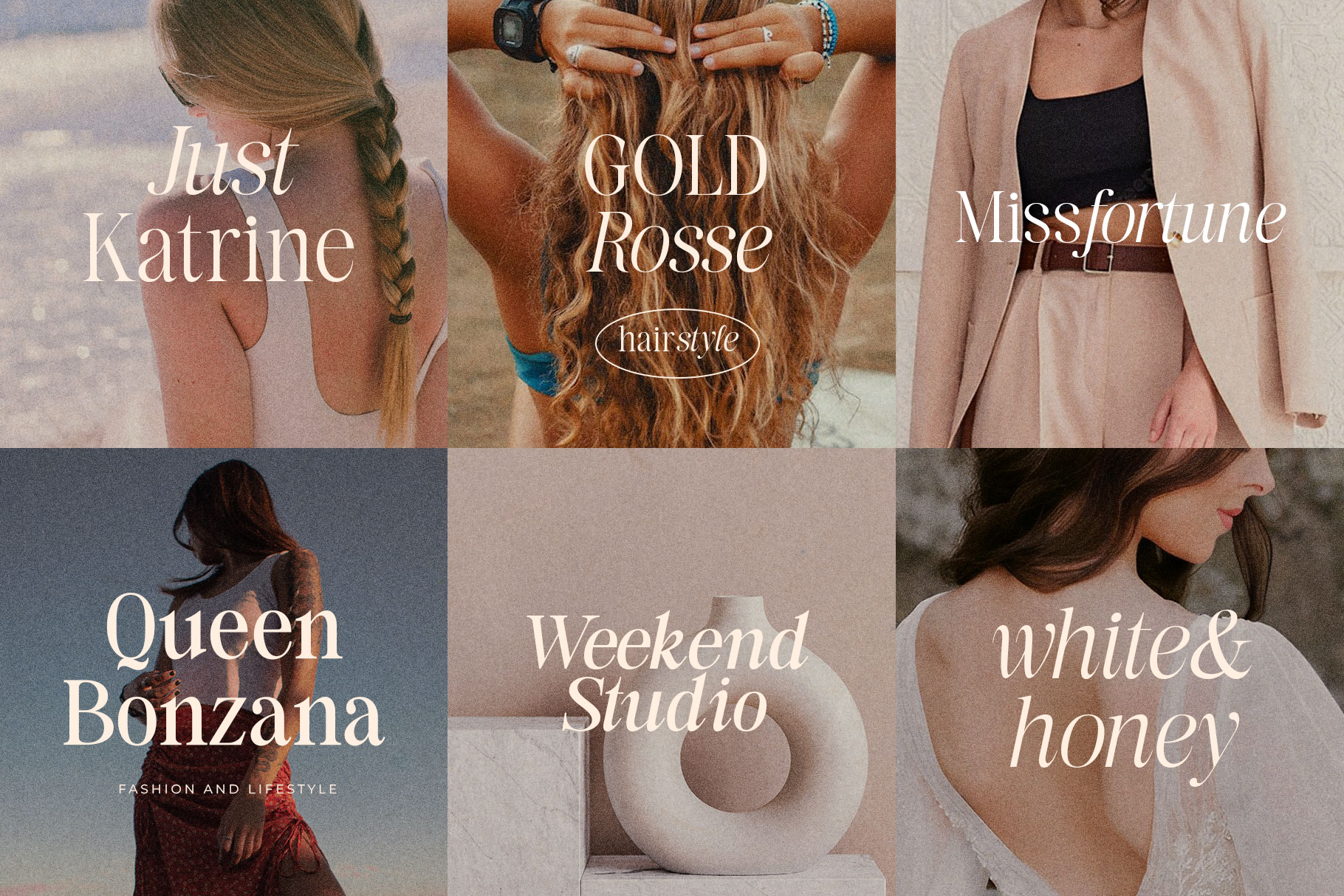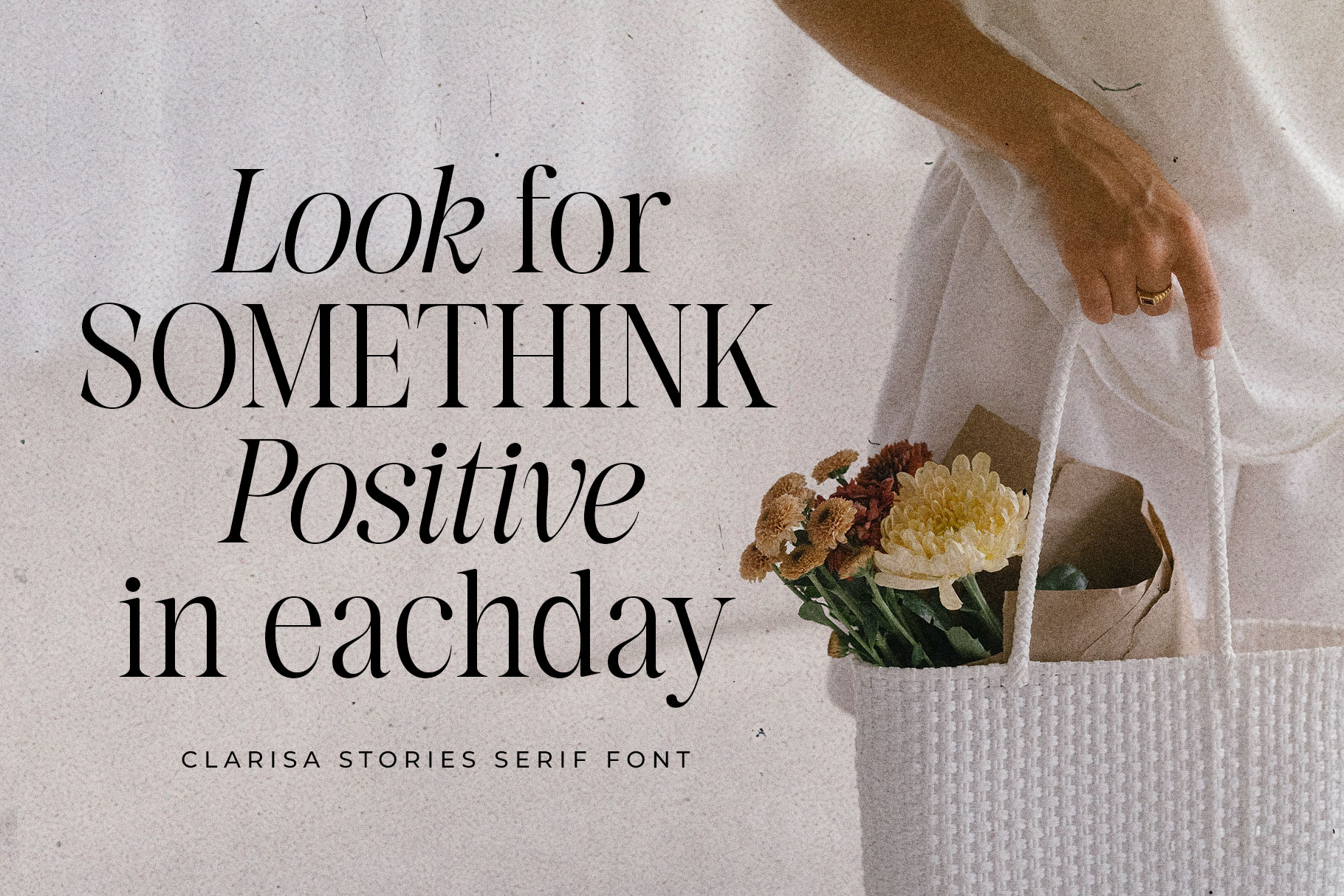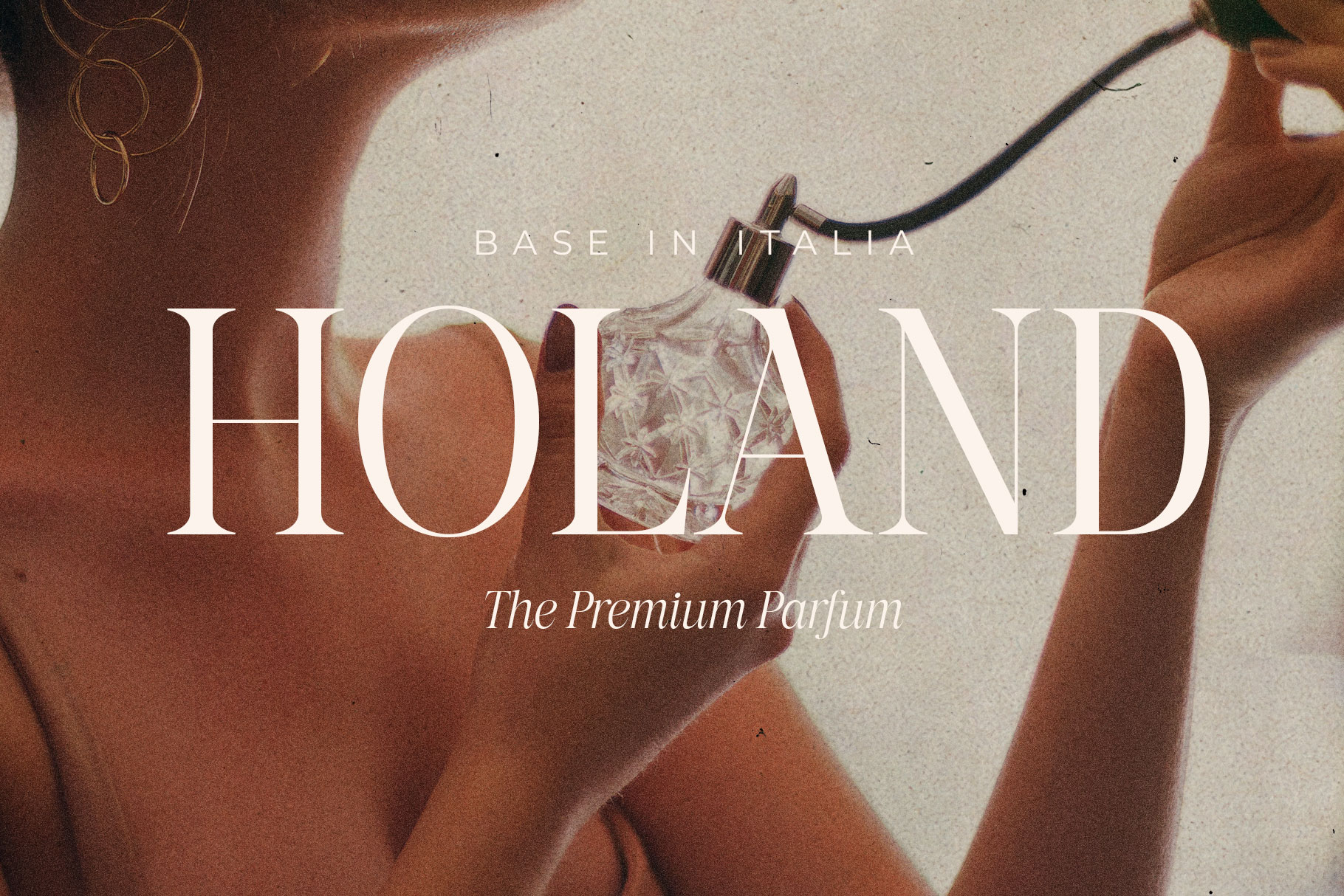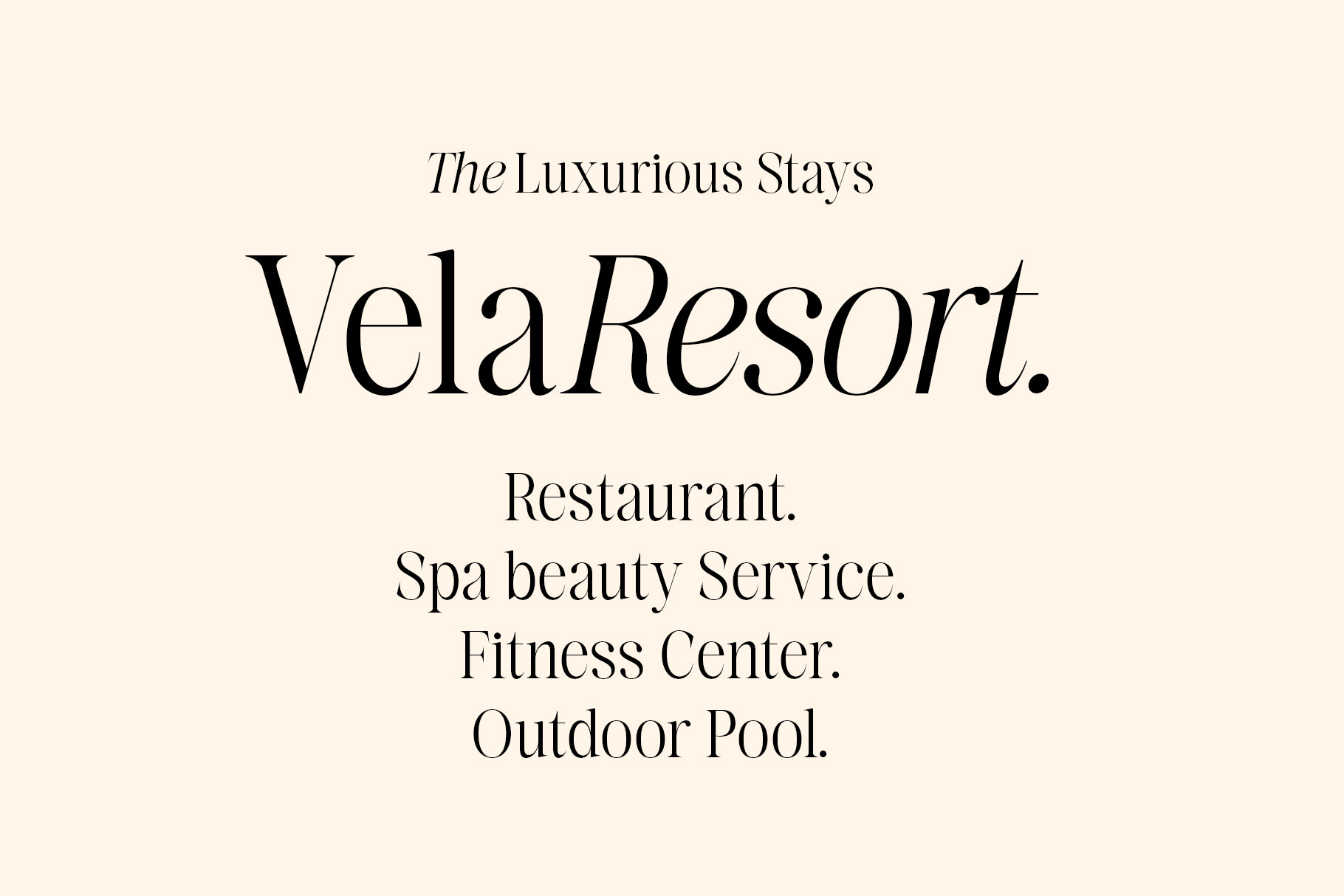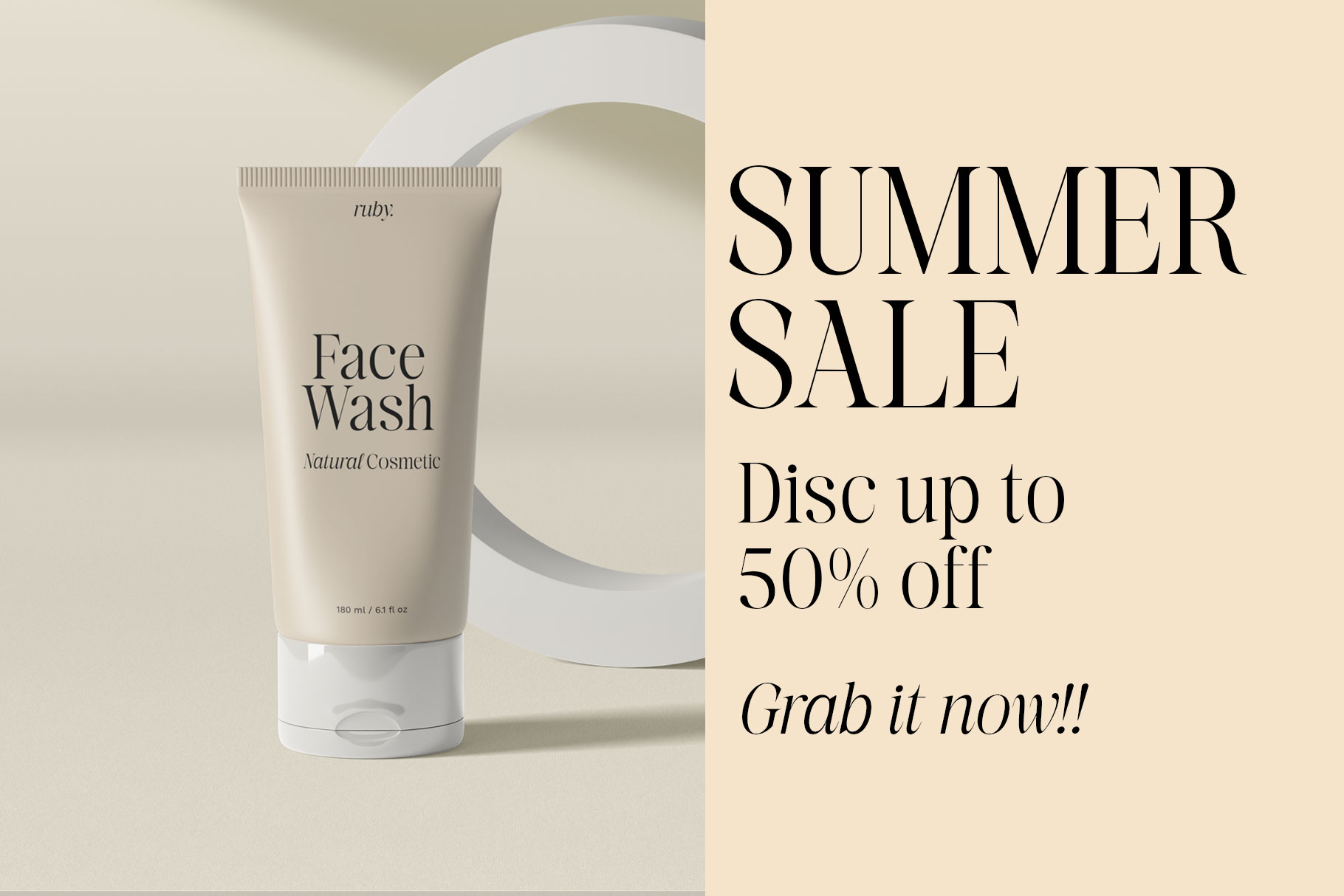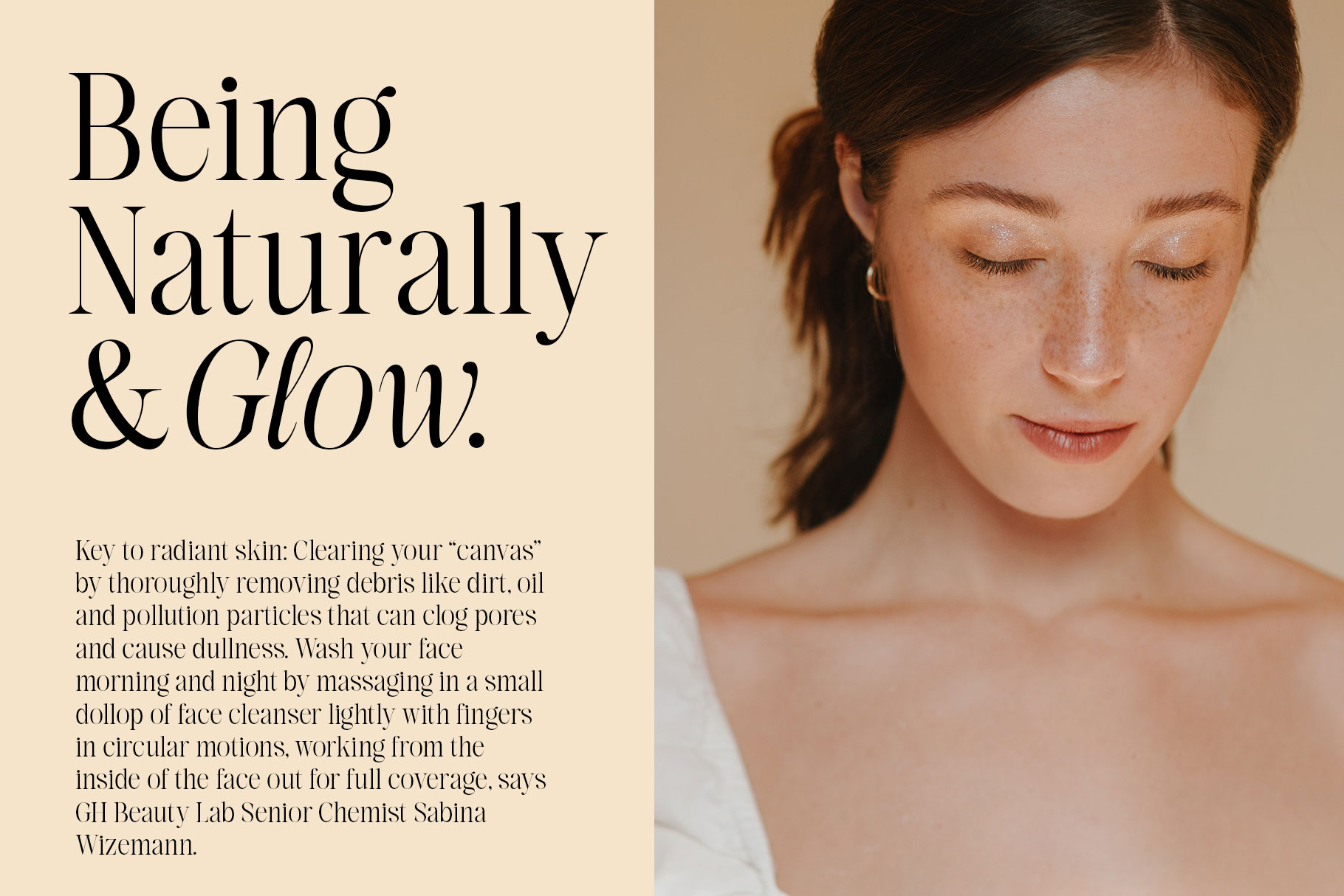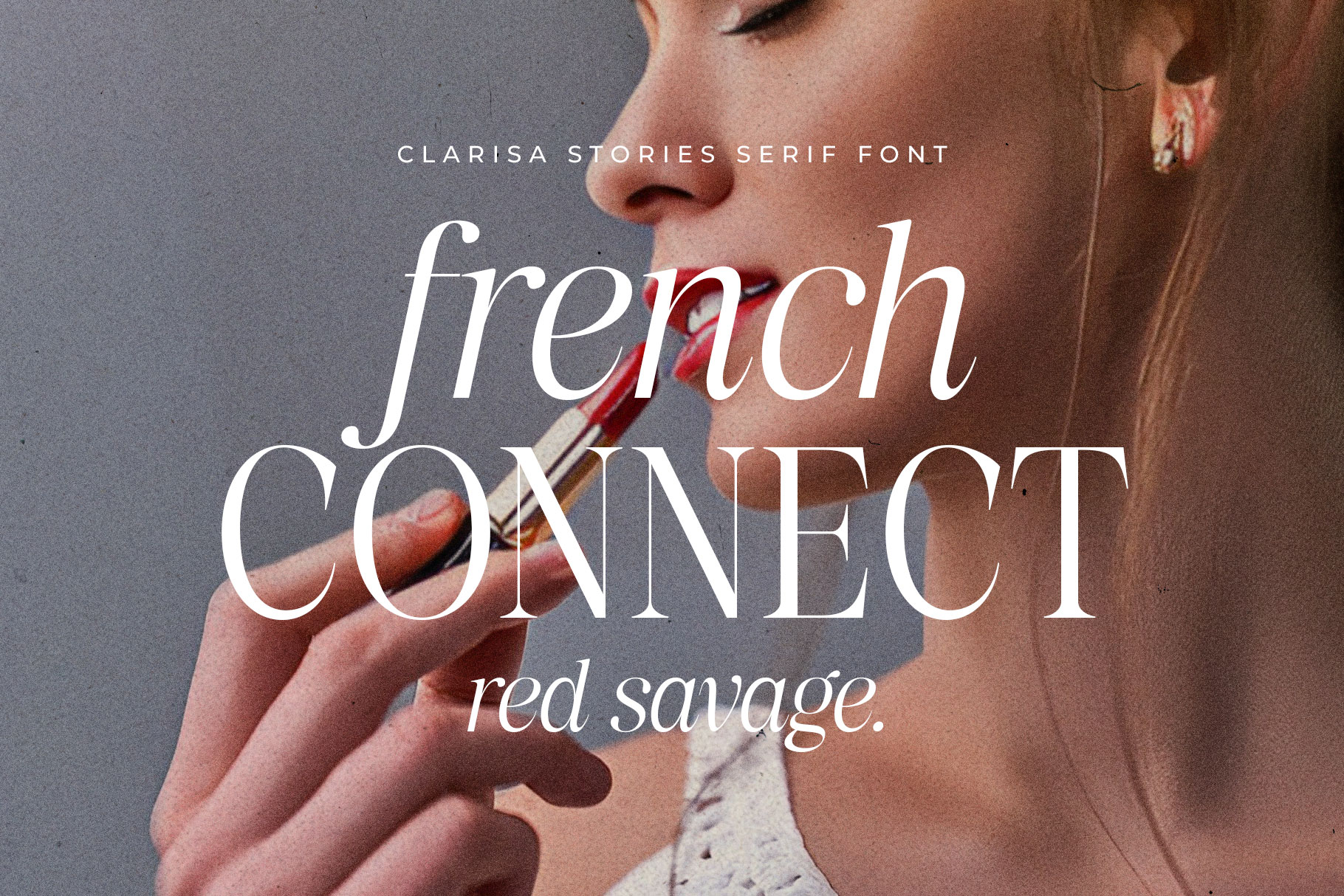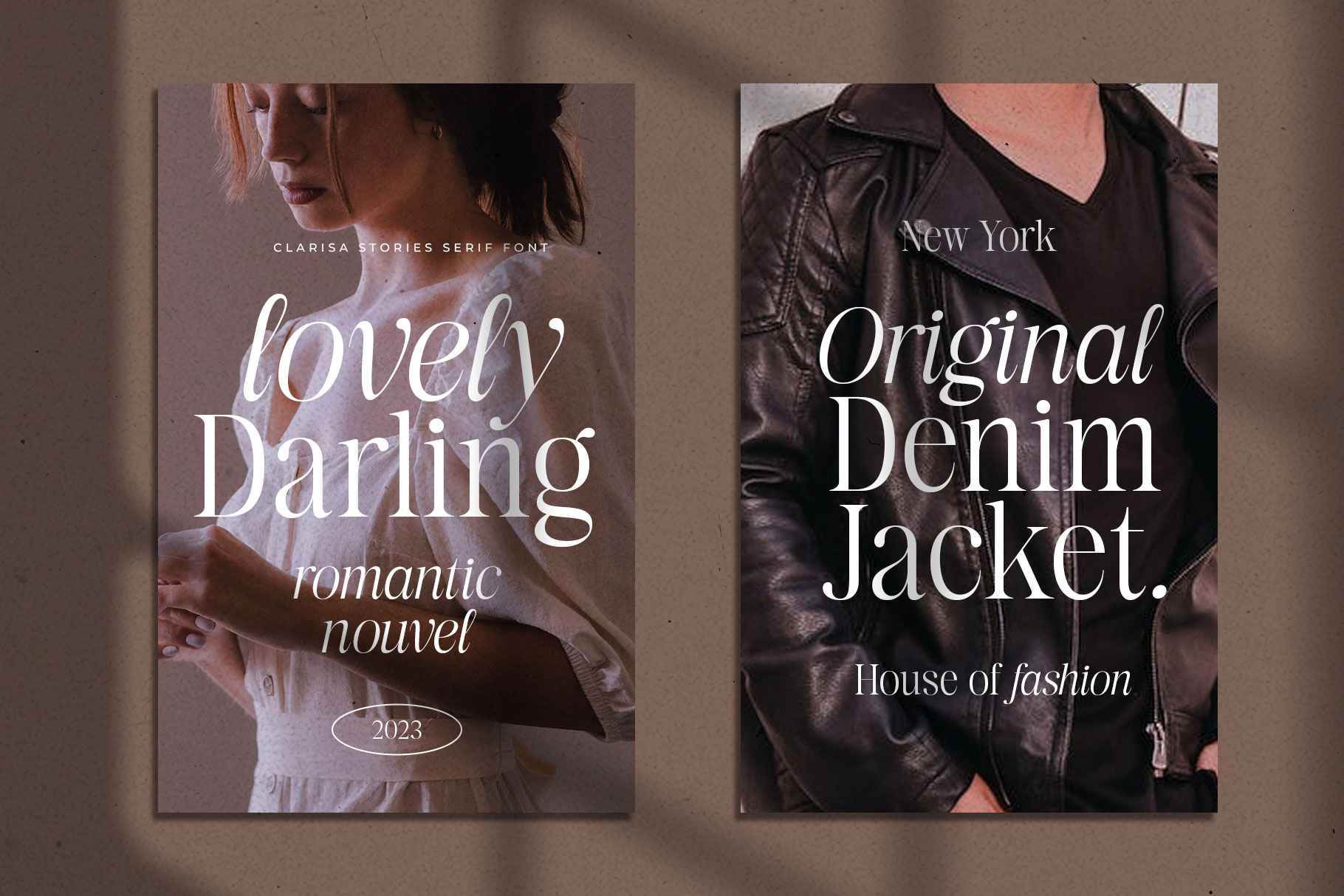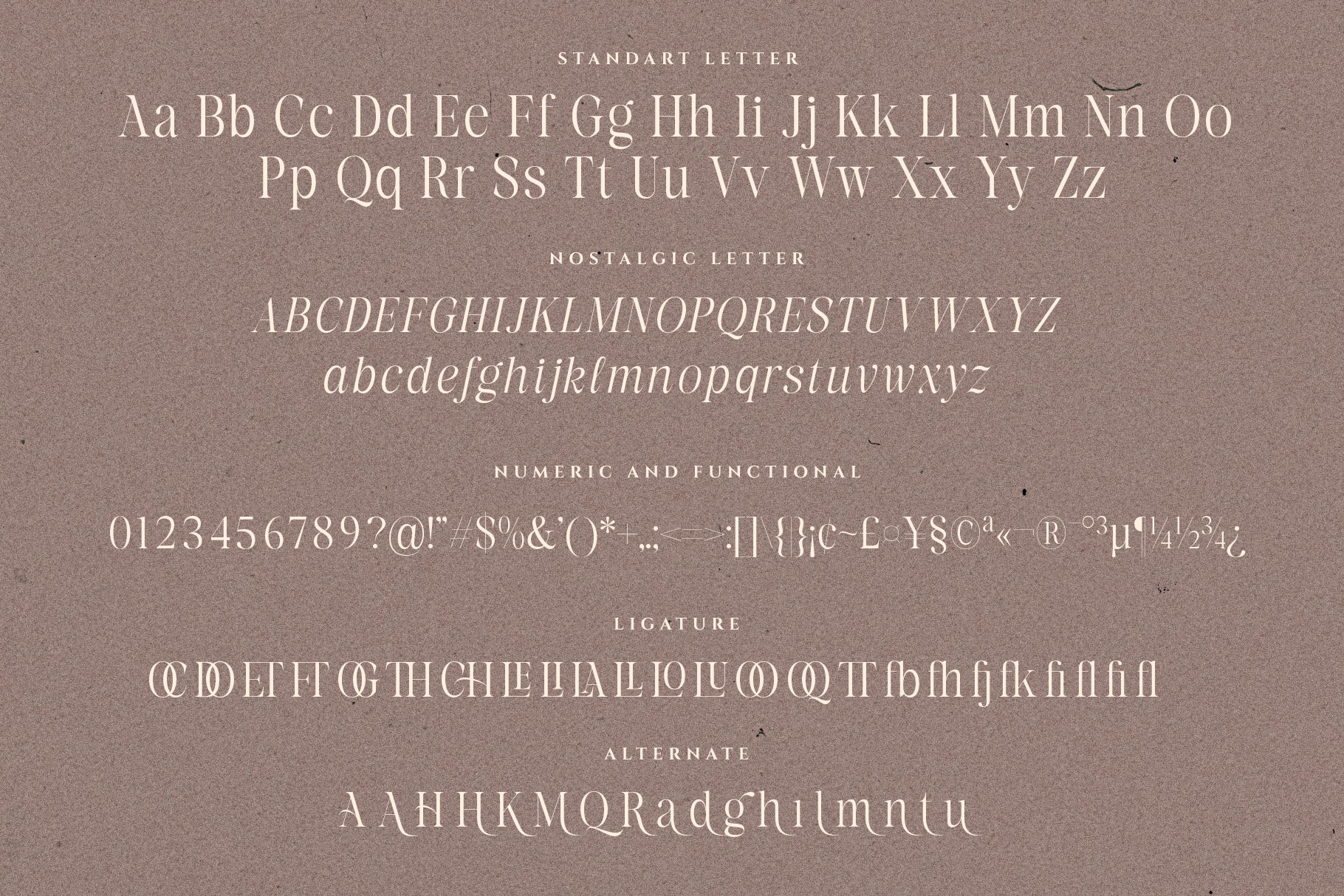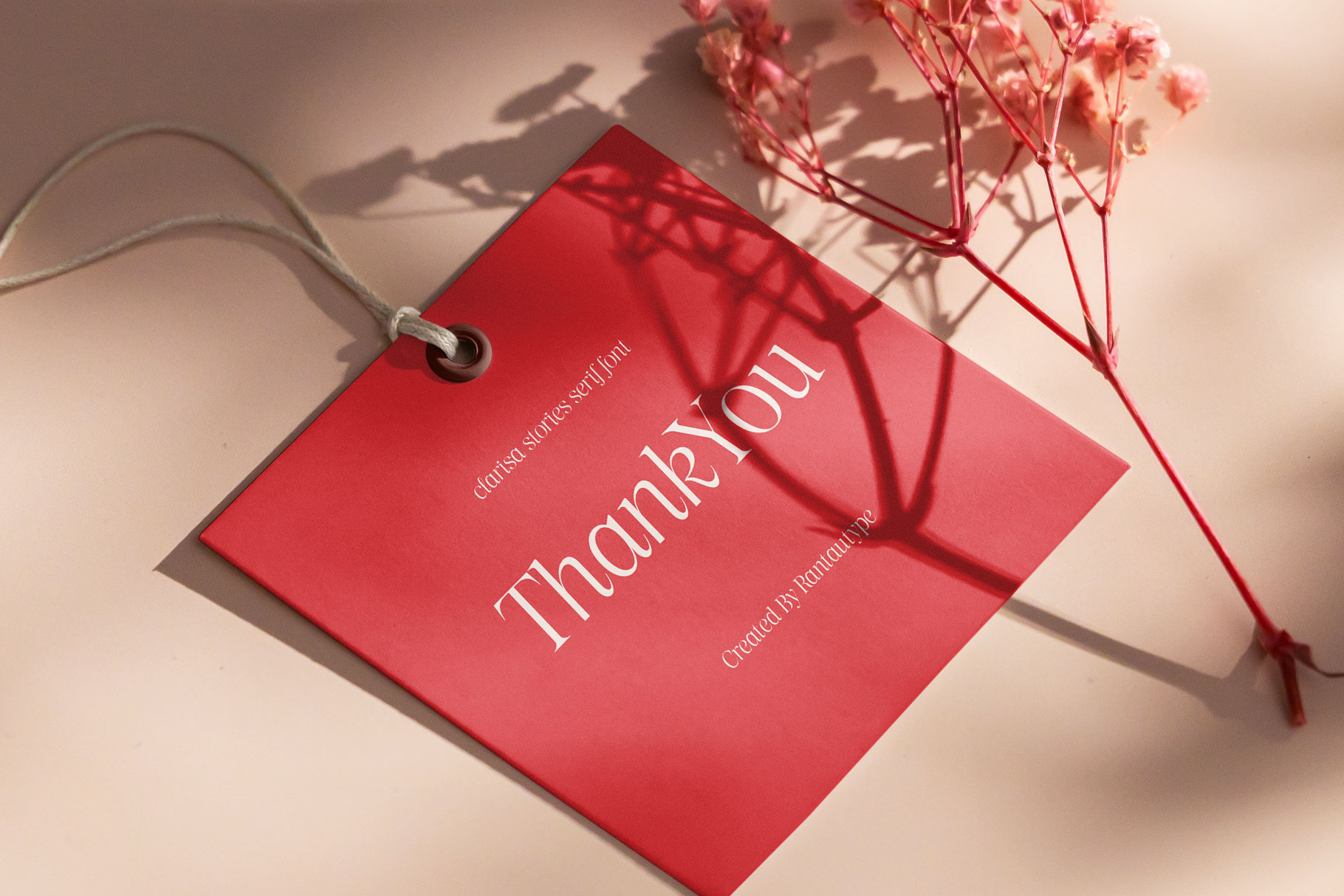
Clarisa Stories Nostalgic Serif Font
Clarisa Stories – is a glamour eighties magazine inspired serif with complementary italic version. Clarisa Stories display serif font that embraces elegance and grace, both come in two versions one with more contrast and crisper than the other. In true Eighties style, combination the reguler and italic make nostlagic but elegant, mix and match them to create eye-catching effects. With its versatility and contemporary appeal.
Clarisa Stories is a beautiful choice for any creative endeavor, creating elegant, modern, chic, lifestyle design such as logos, title, cover, branding, invitations, wedding designs, display and magazine, social media posts, advertisements, printed quotes, product packaging, product designs, labels, photography, watermarks, special events and more. Now you can using Clarisa Stories to make a stunning design.
• Ligature and Alternate